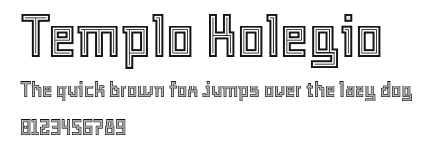
Templo Kolegio Preview
• Font Name: Templo Kolegio
About Templo Kolegio.ttf
Templo Kolegio.ttf is a modern, elegant sans-serif font designed for ultimate readability and visual harmony. Perfect for branding, headlines, web design, and print materials.